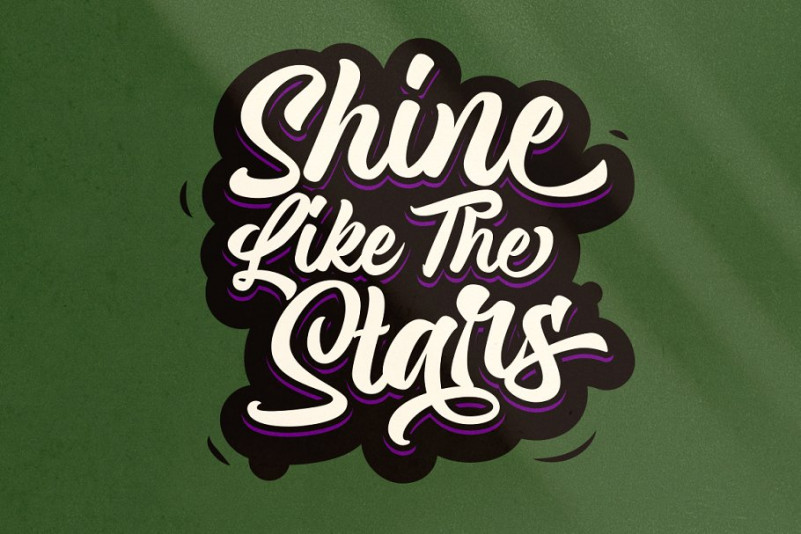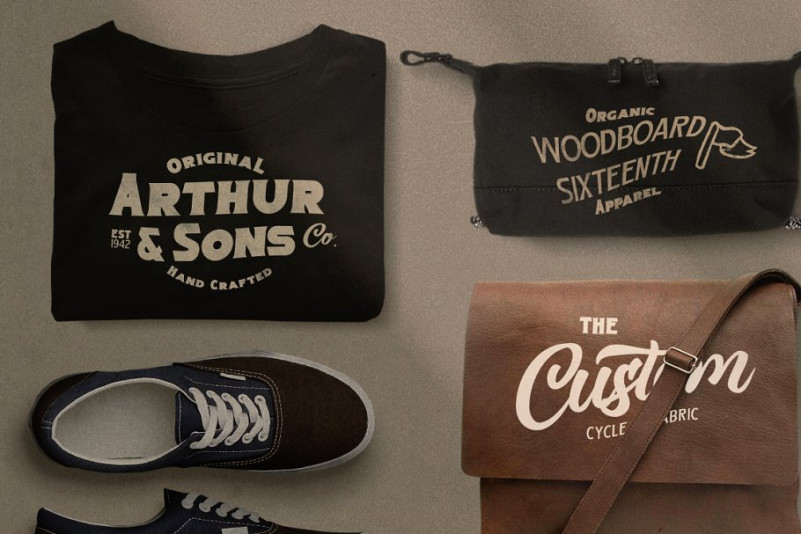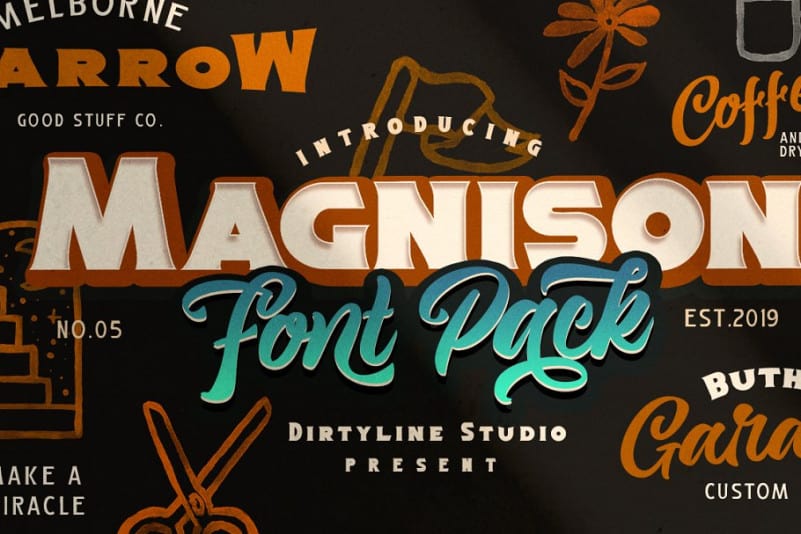
Magnison Script Font
This is a display combo pack of styles and 5 fonts. This font is ​perfect for making your set of project. Introducing Magnison Font Pack!  It is design and shared by Dirtyline Studio. Magnison Font Collection is combination Script and Serif with bold and light, Inspired by Retro style and combination with Hand Lettering style. I’m made with personality touch every single curve. I hope this can make inspire you from your work. and a very bouncy baseline It has a perfectly paired complimentary marker font , and a super handy set of bonus Illustrations and Text Effect. Ideal for logos, handwritten quotes, product packaging, header, poster, merchandise, social media & greeting cards.